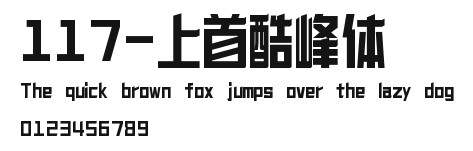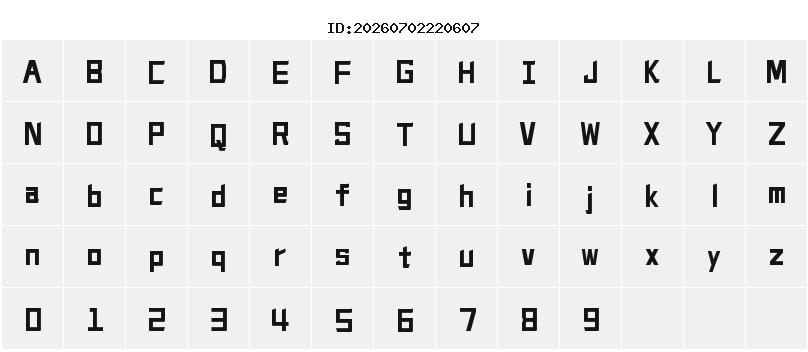
117-上首酷峰体 Preview
• Font Name: 117-上首酷峰体
• Font ID: 117-SSKuFengiTi:Version 6.00
• Full Font Name: 117-上首酷峰体
• Version: Version 6.00 August 26, 2022
• PostScript Name: 117-SSKuFengiTi
• Character Count: 7569
• Manufacturer: 上首造字
About 117-上首酷峰体.ttf
117-上首酷峰体.ttf is a modern, elegant sans-serif font designed for ultimate readability and visual harmony. Perfect for branding, headlines, web design, and print materials.